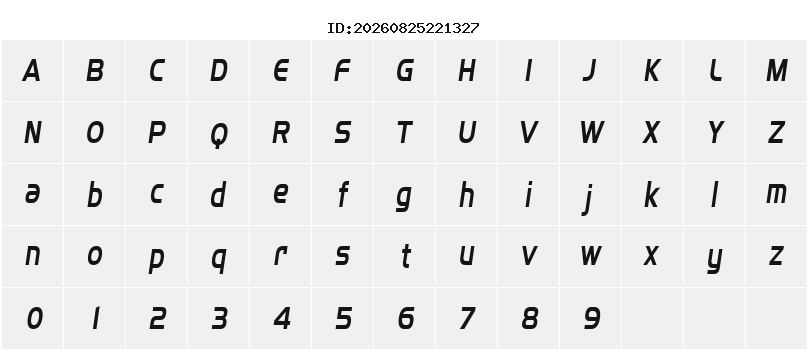
SF Fourche Condensed Preview
• Font Name: SF Fourche Condensed
• Font ID: ShyFoundry: SF Fourche Condensed Italic: 2008
• Full Font Name: SF Fourche Condensed Italic
• PostScript Name: SFFourcheCondensed-Italic
• Designer: Derek Vogelpohl
• Manufacturer: ShyFoundry
About SF Fourche Condensed.ttf
SF Fourche Condensed.ttf is a modern, elegant sans-serif font designed for ultimate readability and visual harmony. Perfect for branding, headlines, web design, and print materials.